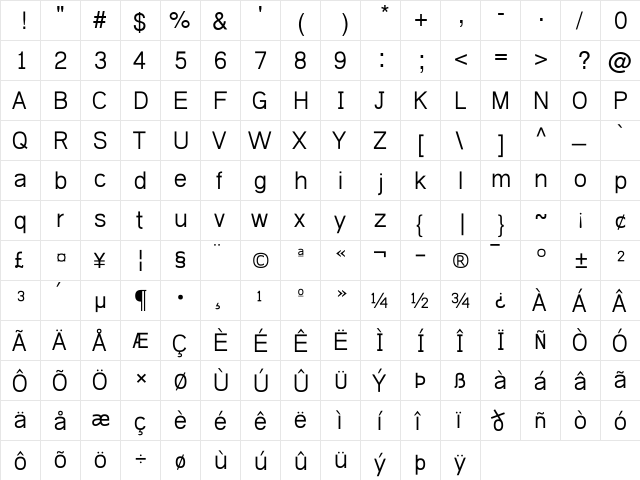
Khmer OS Siemreap Regular
| Foundry | Danh Hong |
| Designer | Danh Hong - 2007 |
Design Context for Khmer OS Siemreap Typeface
Khmer OS Siemreap offers clean, dependable letterforms without strong stylistic allegiance, making it a practical choice for designers who need flexibility.